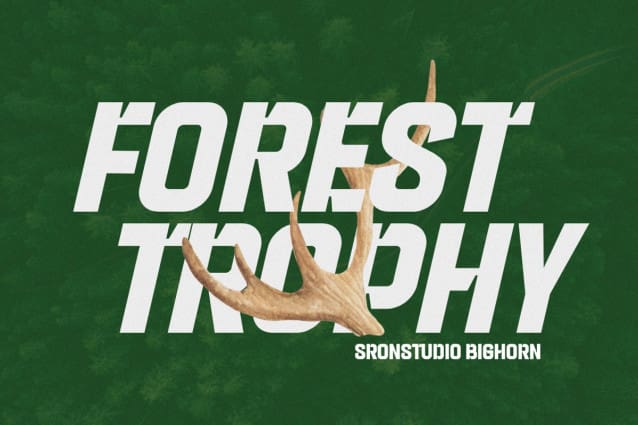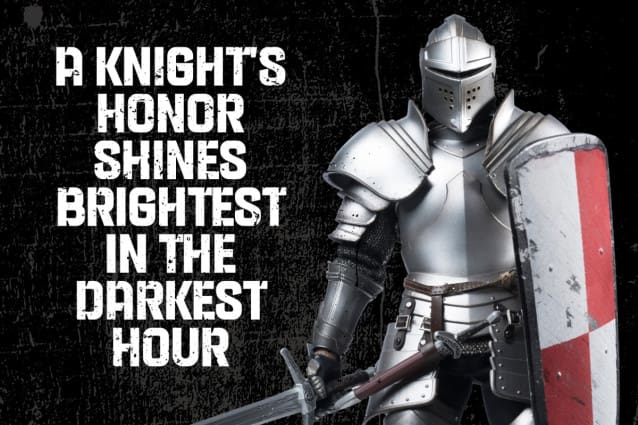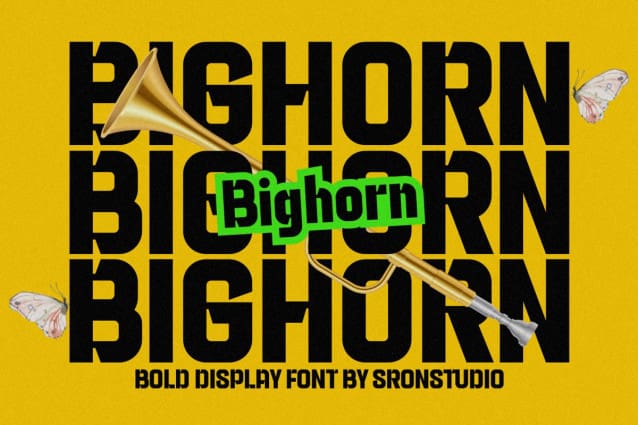
Bighorn Font
Bighorn Font, a modern bold font that exudes strength and confidence. With its powerful and robust design, “Bighorn” is perfect for making a bold statement in headlines, logos, posters, and branding projects. Its strong lines and commanding presence will ensure your message stands out with authority and style. Make an impact with “Bighorn.”